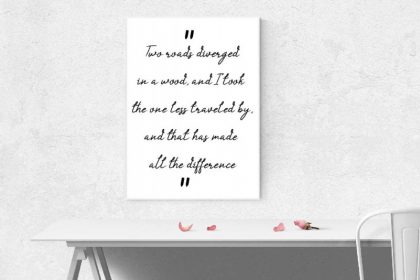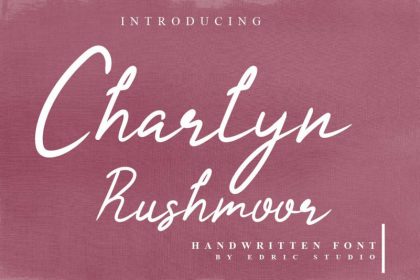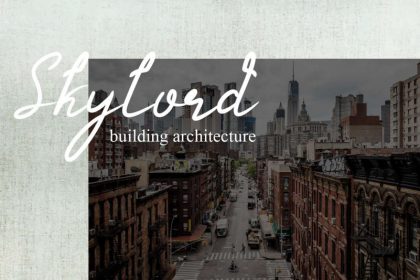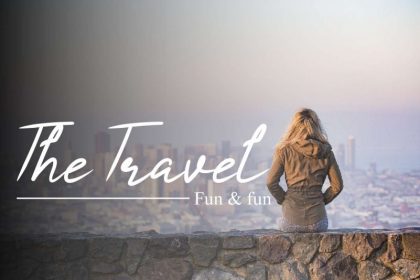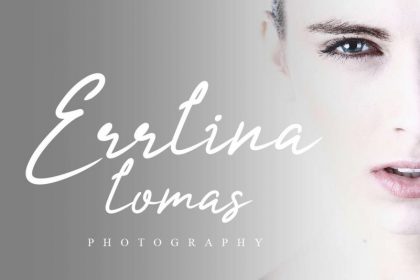
Charlyn Rushmoor Handwriting Font
We at Edric Studio in 2020 Present to you : Charlyn Rushmoor Handwriting Font This is a calligraphy script font family made inhouse at our studio in Bandung-Indonesia. Charlyn Rushmoor Font is a calligraphy with beautiful glyphs and has many alternatives glyps : both lower and upper cases. Charlyn Rushmoor Font has also many international languages characters. It will Work on PC & Mac with Simple installations. Accessible in the Adobe Illustrator, Adobe Photoshop, Adobe InDesign, even work on Microsoft Word. It’s also PUA Encoded Characters – Fully accessible without additional design software.